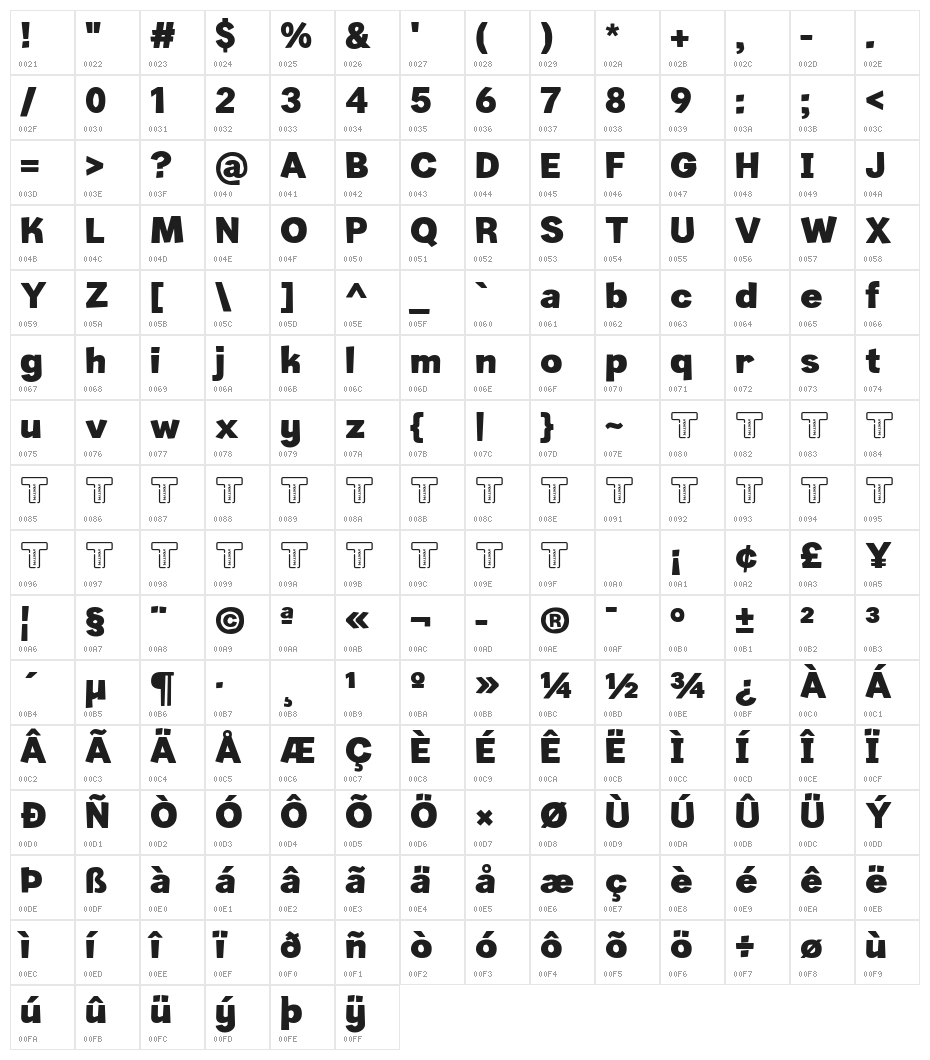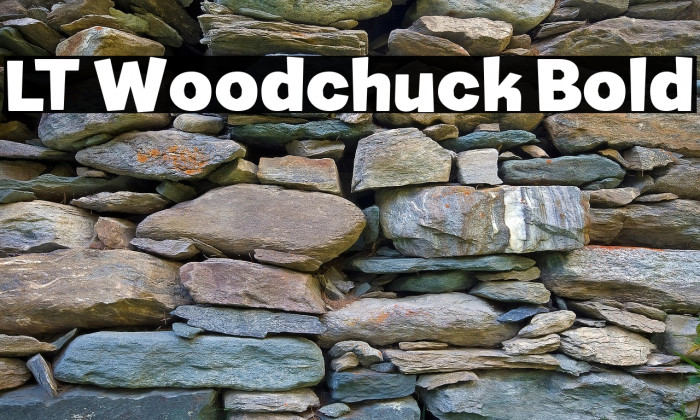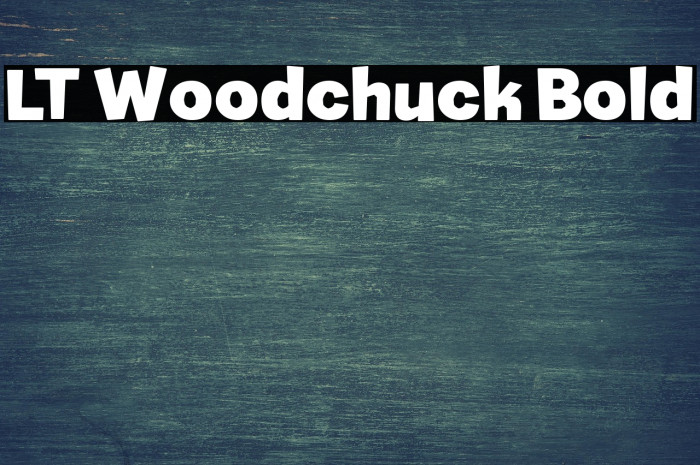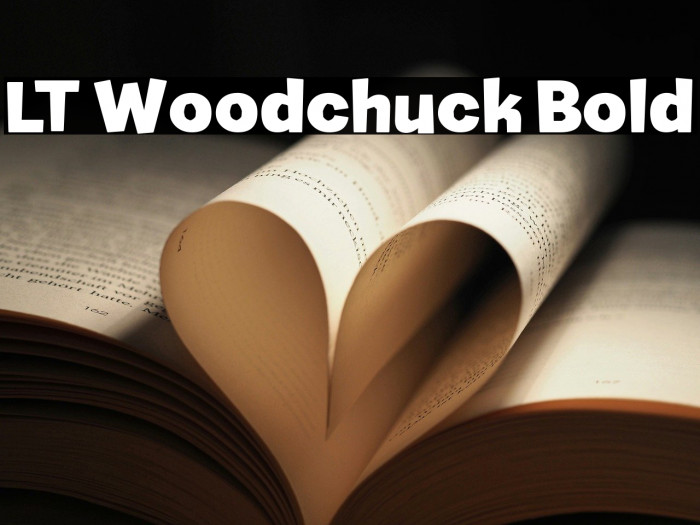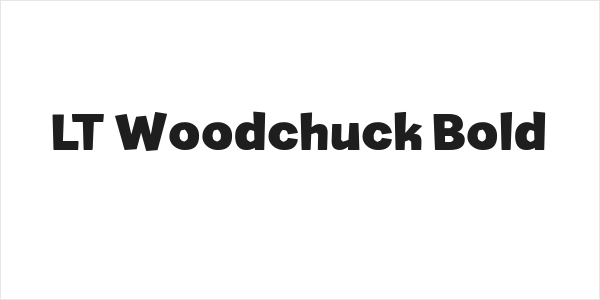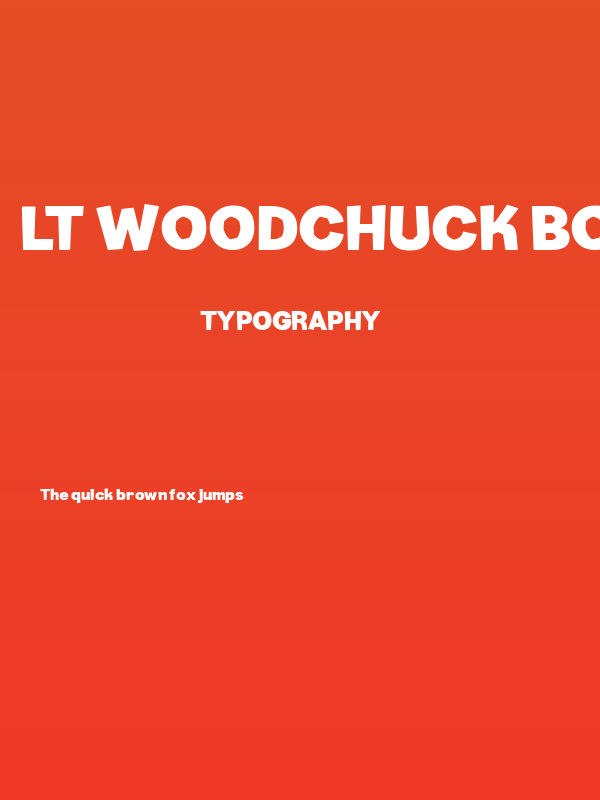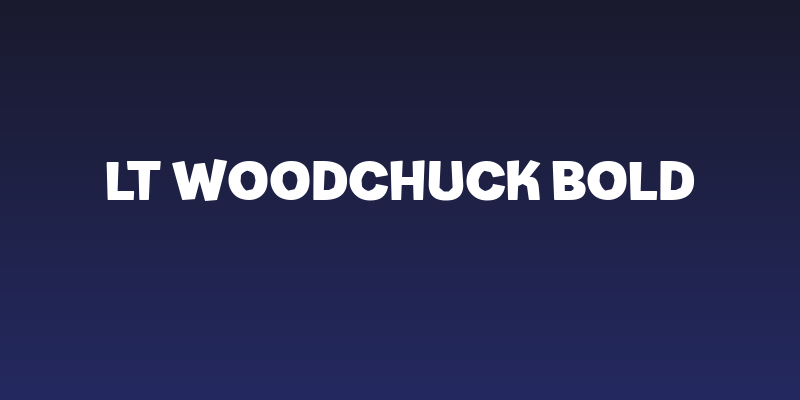
LT Woodchuck Bold Font
LT Woodchuck Bold Description
This bold and impactful font features thick, rounded strokes that convey a sense of strength and confidence. The uppercase letters are robust and commanding, while the lowercase letters maintain a consistent weight, ensuring readability. The numerals are equally bold, making them stand out prominently. Special characters are designed with the same boldness, ensuring uniformity across all glyphs. The font's overall appearance is modern and assertive, suitable for making a strong visual statement.
| Proposed Projects | Ideal for branding, headlines, posters, and any project requiring a bold, attention-grabbing typeface. |